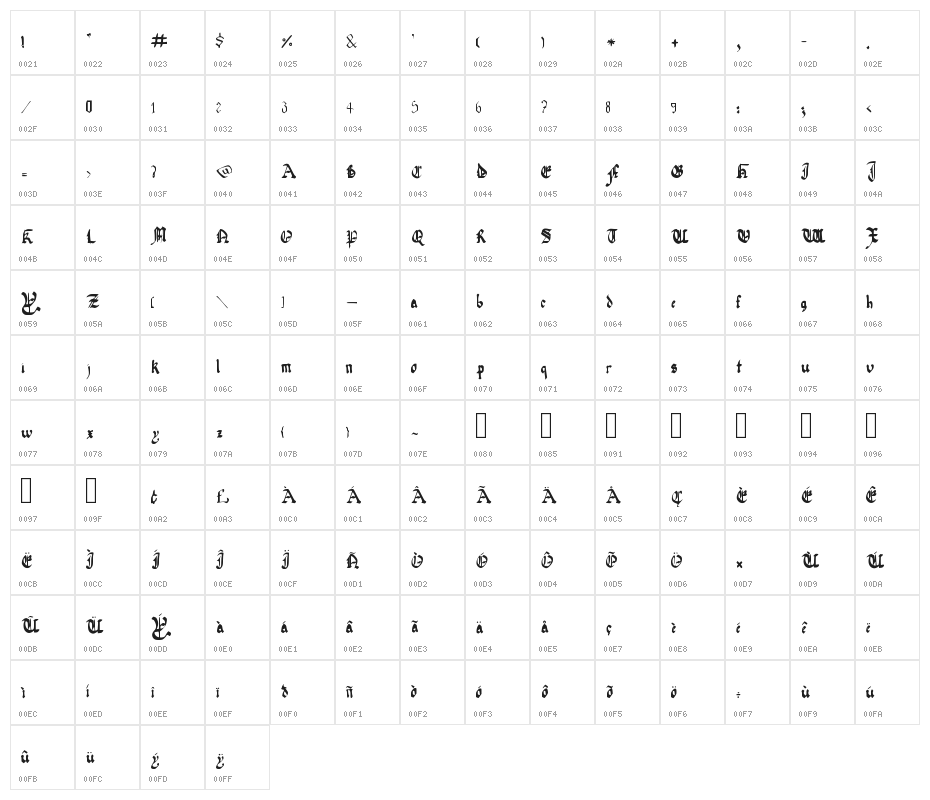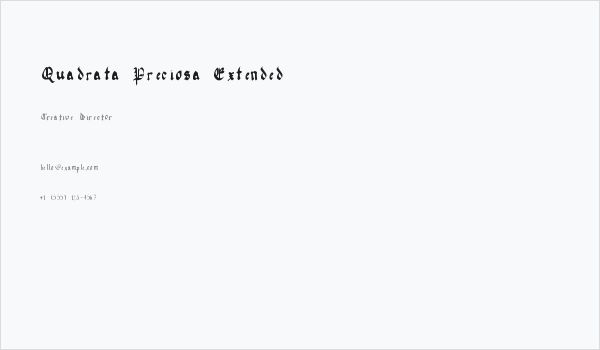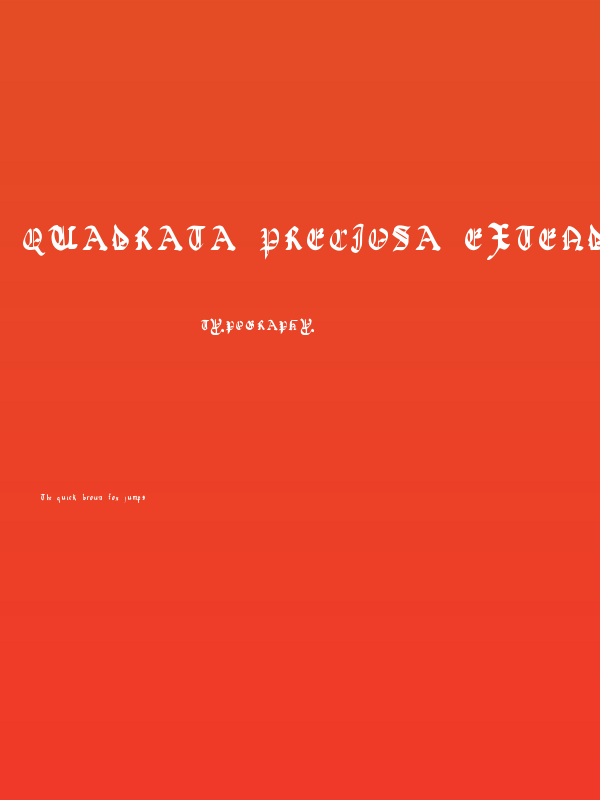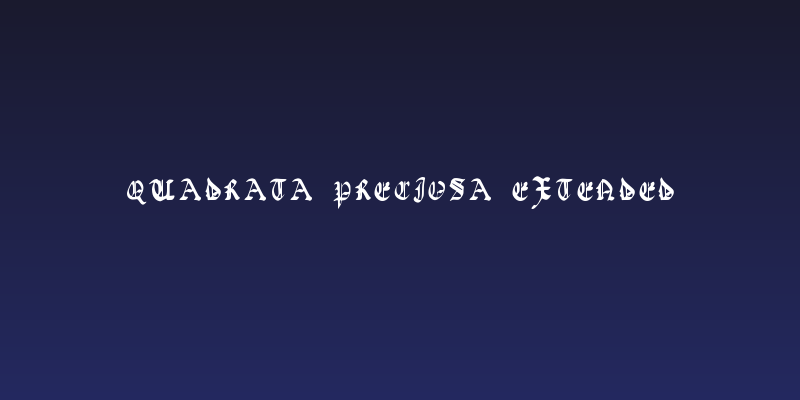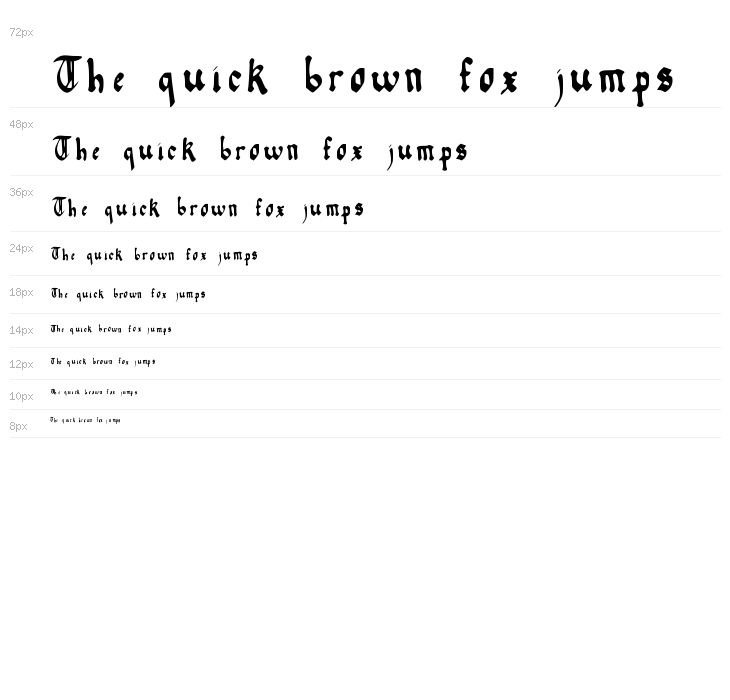
Quadrata Preciosa Extended Font
Quadrata Preciosa Extended Description
This font exhibits a classic blackletter style, characterized by its intricate and ornate letterforms. The uppercase letters are bold and angular, with sharp serifs and decorative elements that give them a medieval appearance. The lowercase letters maintain the same stylistic features but are slightly more condensed, providing a harmonious balance. The numerals are distinct and follow the same decorative theme, making them stand out. Special characters are crafted with the same attention to detail, ensuring consistency across the font. This font's unique style is reminiscent of historical manuscripts, making it ideal for projects that require a touch of elegance and tradition.
| Use Case | Headlines, Logos, Decorative text |
| Proposed Projects | Ideal for historical documents, certificates, invitations, and branding that requires a traditional or medieval touch. |